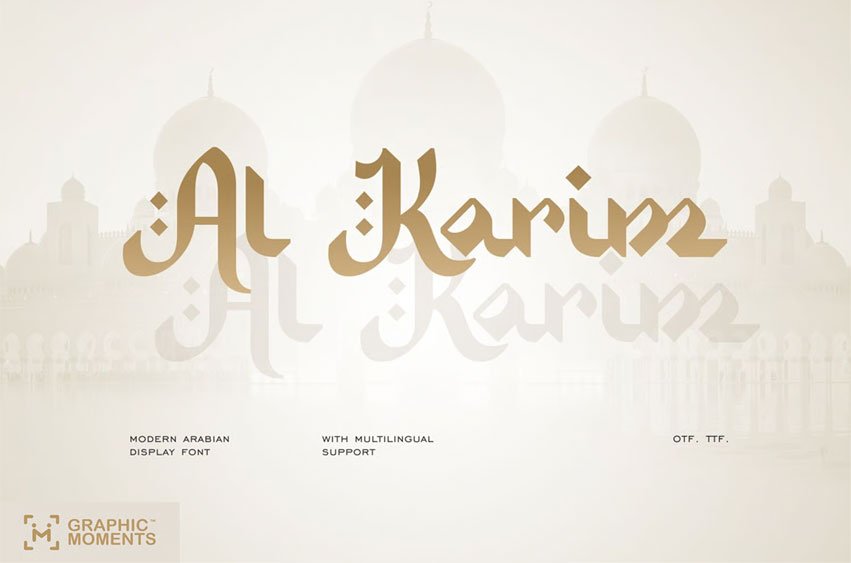
Al Karim Font Arabic Font for Ramadan Al Karim font is a modern display typeface inspired by the beauty of classic Arabic calligraphy, designed to bring a luxurious and contemporary touch to various design projects. It blends traditional aesthetics with a clean and minimalist modern style, making it a unique and versatile choice.